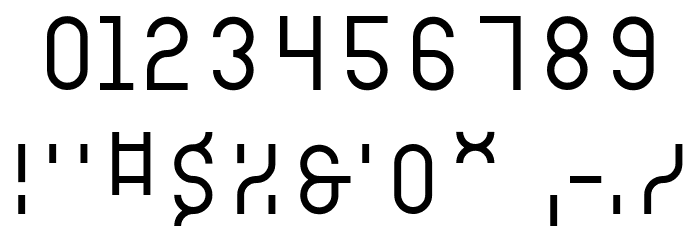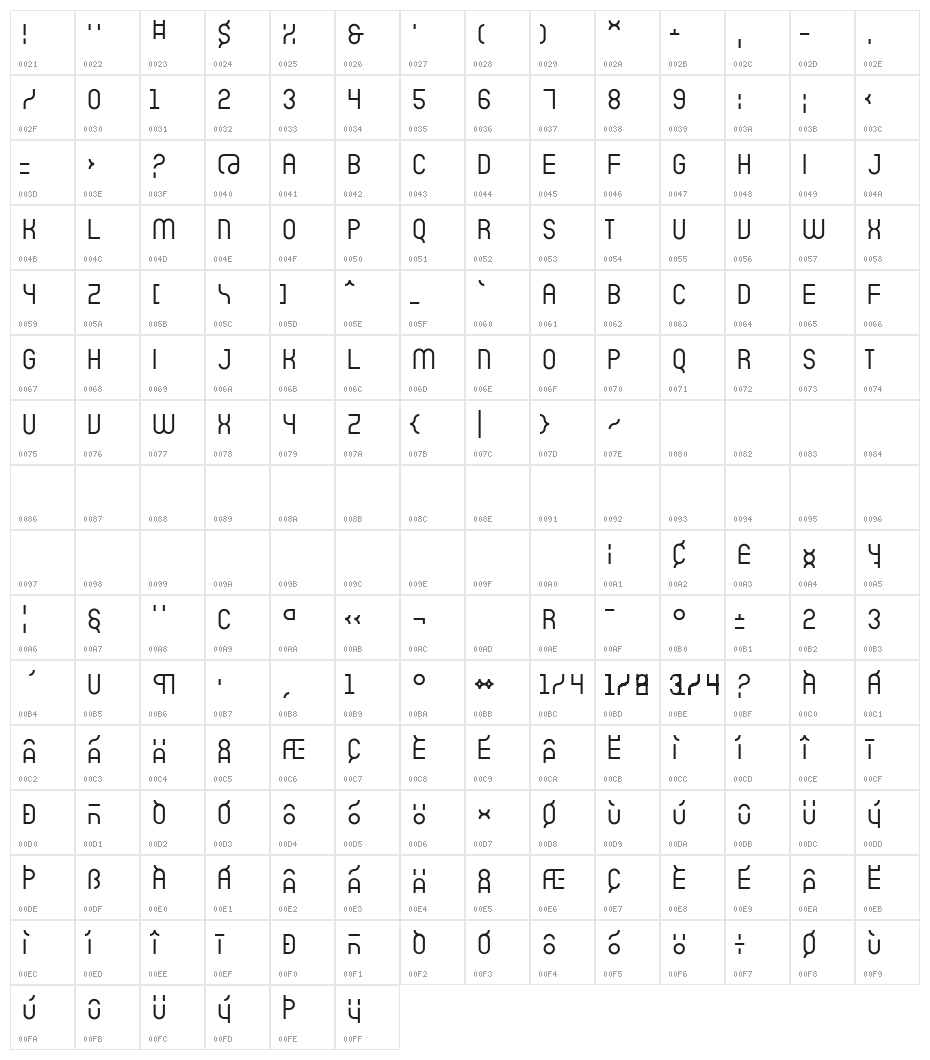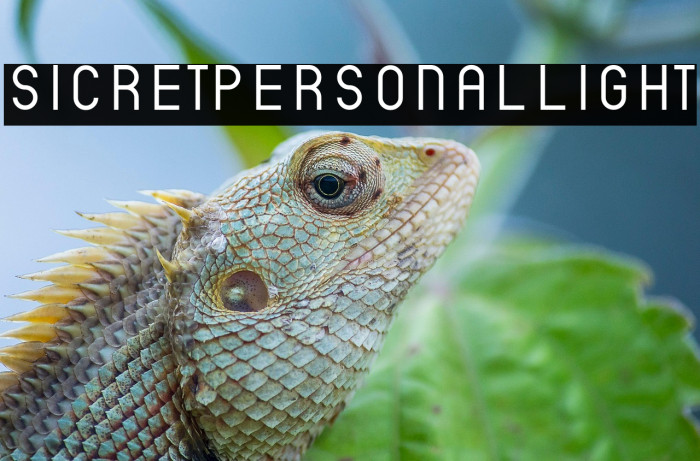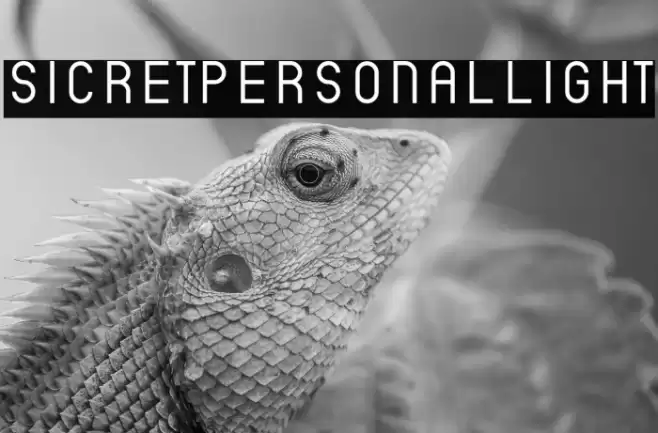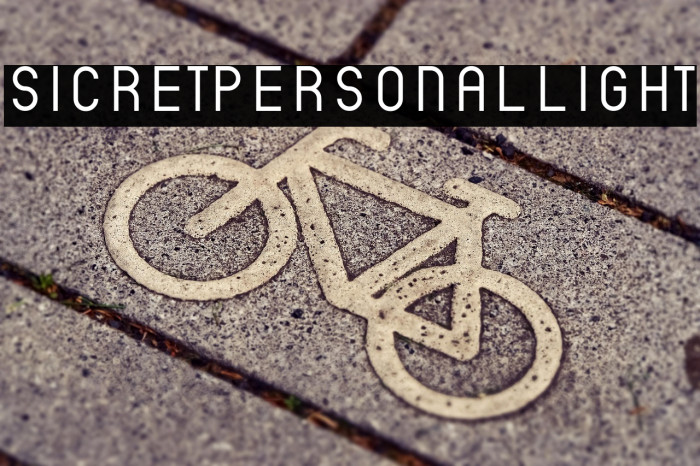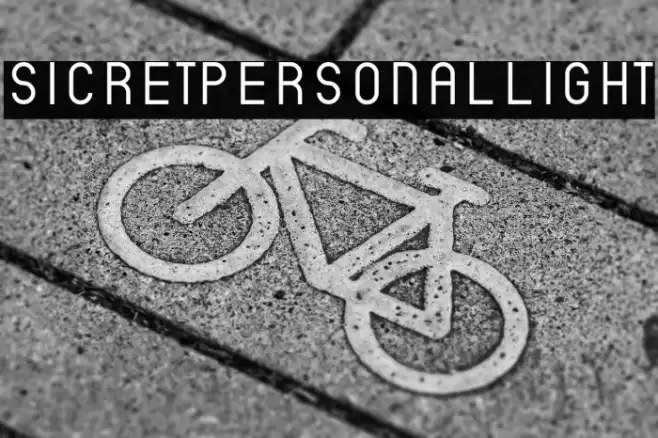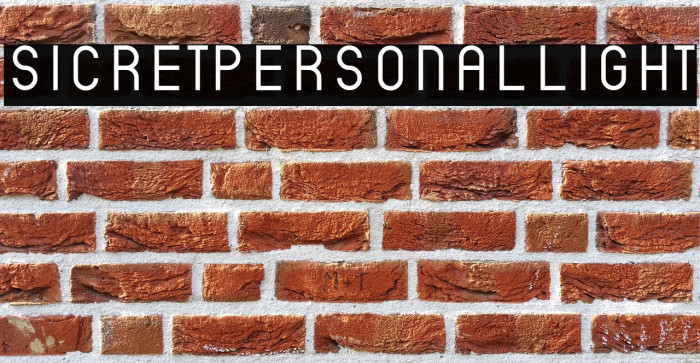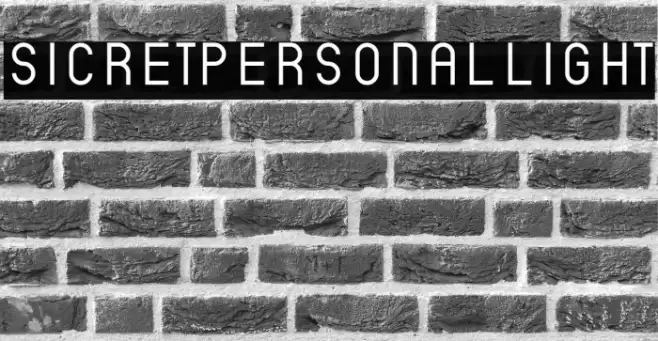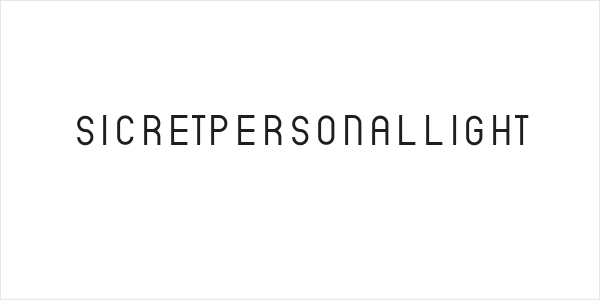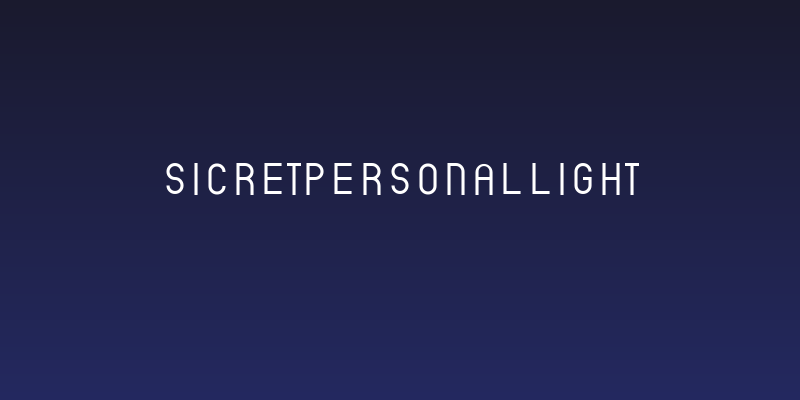
SicretPERSONALLight Font
SicretPERSONALLight Description
This font features a clean and modern sans-serif style with a geometric structure. The characters are uniform in width, giving it a monospaced appearance, though it maintains a subtle elegance with rounded edges. The uppercase and lowercase letters are consistent in style, with a slight variation in height that adds a touch of sophistication. The numerals are clear and easily distinguishable, making them suitable for digital displays. Special characters are included, maintaining the same geometric and minimalist aesthetic. This font is versatile, suitable for both digital and print media.